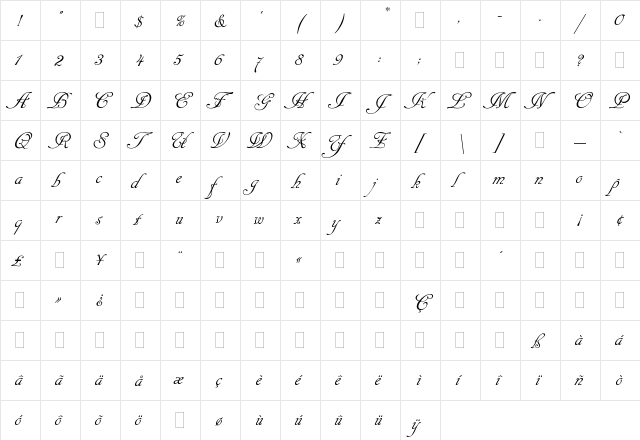
CancellarescaScriptPlain Regular Font Preview
CancellarescaScriptPlain Regular
Design Context for CancellarescaScriptPlain Typeface
CancellarescaScriptPlain flows with the natural rhythm of handwritten lettering, making it ideal for designs that call for warmth and personal expression.
Font Pairing: Combine CancellarescaScriptPlain with a simple geometric sans for maximum contrast — the tension between flowing curves and clean structure is a classic typographic pairing.
Pro Tip: Pair CancellarescaScriptPlain with a clean sans-serif for supporting text. The contrast between fluid script and geometric structure creates an elegant typographic hierarchy.